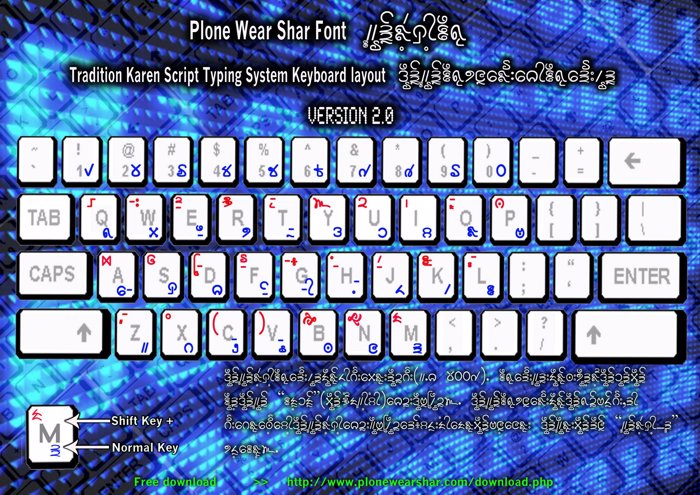
Plone Ware Shar Mla Font
This font is free license. Brief History: Its was fond in 17 century in Southeast Asian, especially Myanmar (Burma) and Thailand.